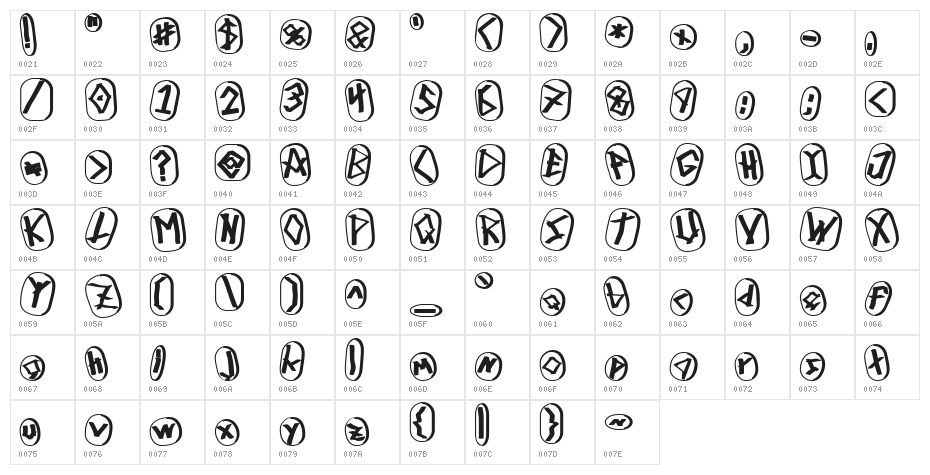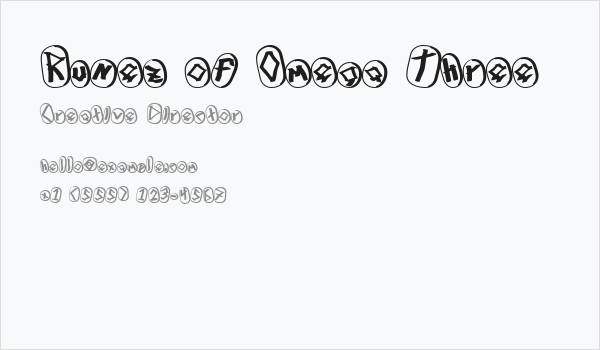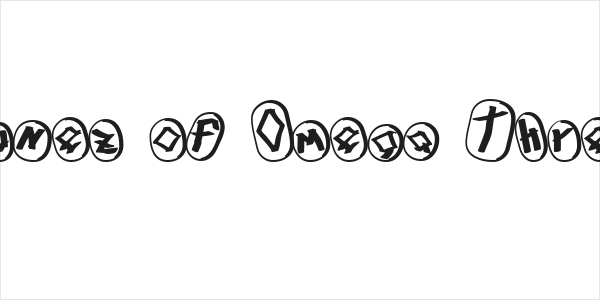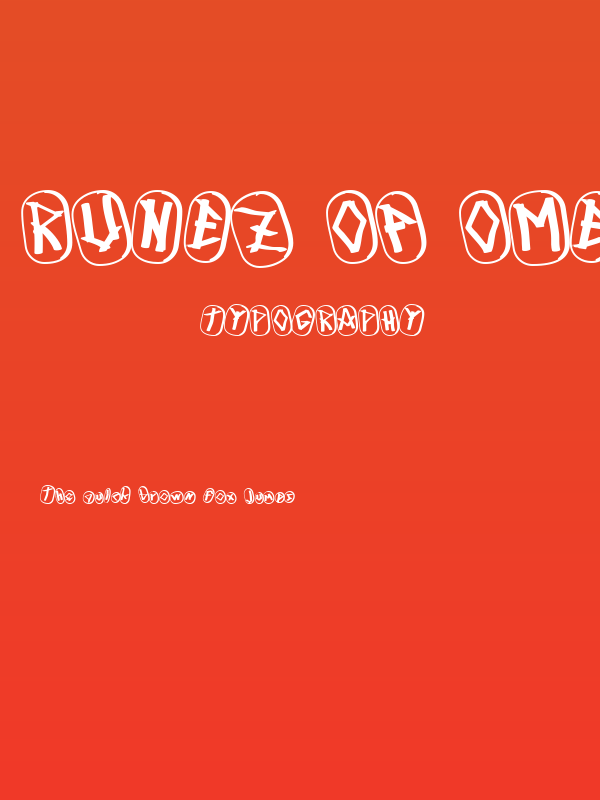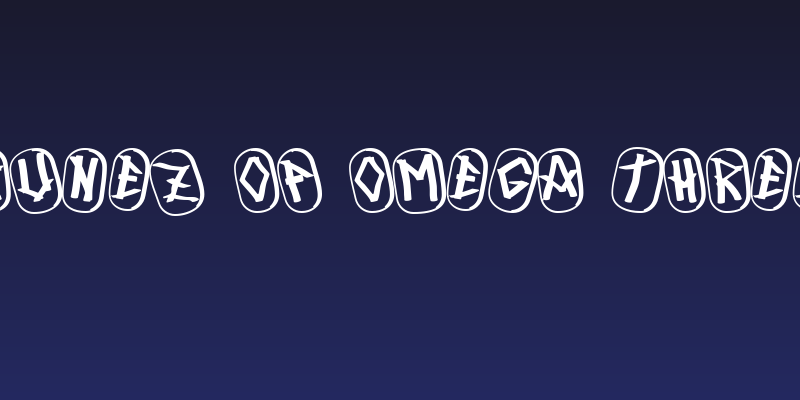
Runez of Omega Three Font
Runez of Omega Three Description
This font features a unique and bold design inspired by ancient runes, encapsulated within oval shapes. Each character is distinct, with sharp angles and a hand-drawn aesthetic that gives it a mystical and archaic feel. The uppercase and lowercase letters maintain a consistent style, while numbers and special characters are equally stylized, enhancing the overall theme. The font's design is reminiscent of ancient scripts, making it ideal for projects that require a touch of mystery or historical depth. Its decorative nature makes it stand out, though it may not be suitable for body text due to its intricate design.
| Proposed Projects | Ideal for fantasy-themed projects, game design, book covers, or any creative work requiring a mystical or historical touch. |